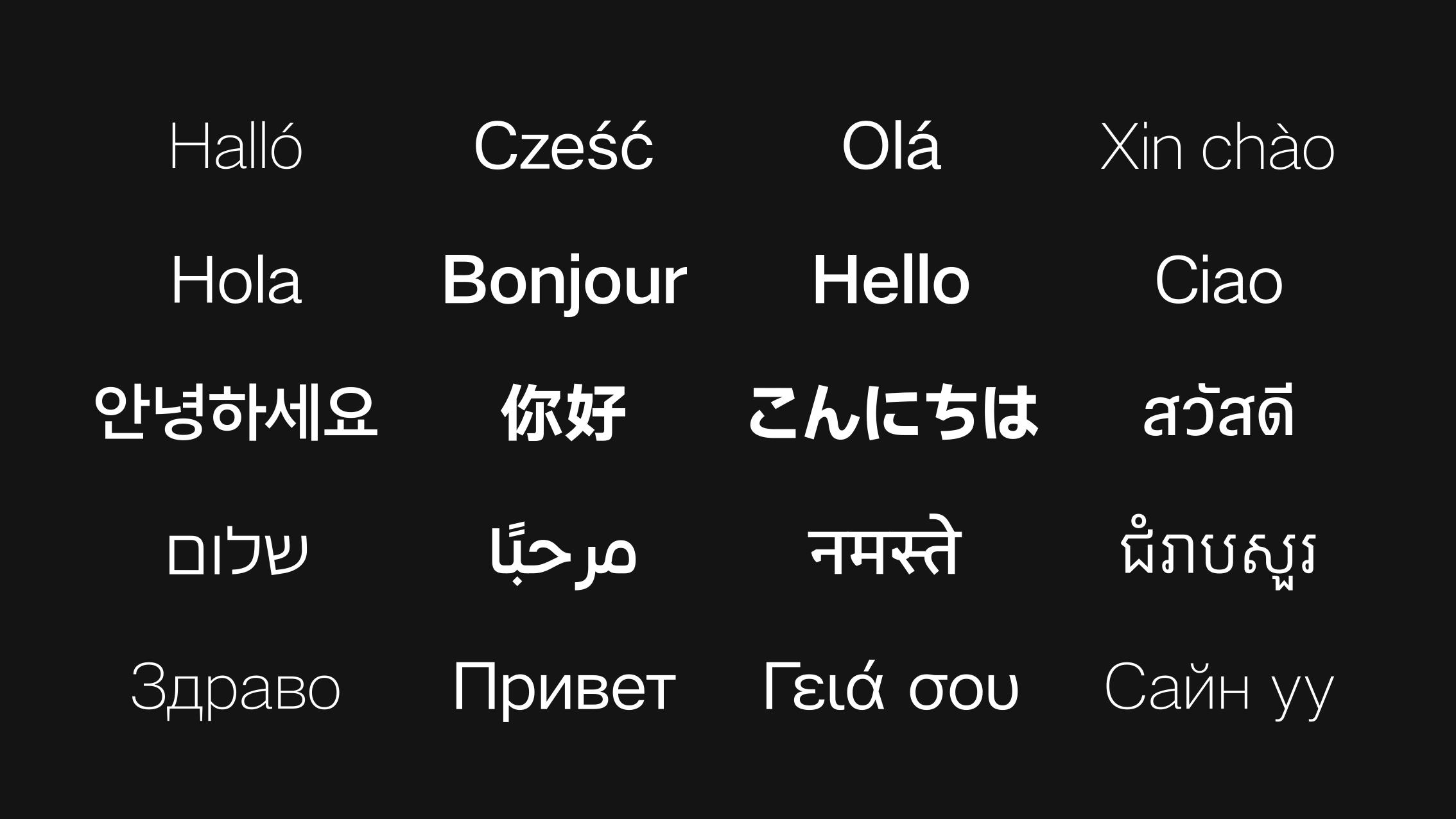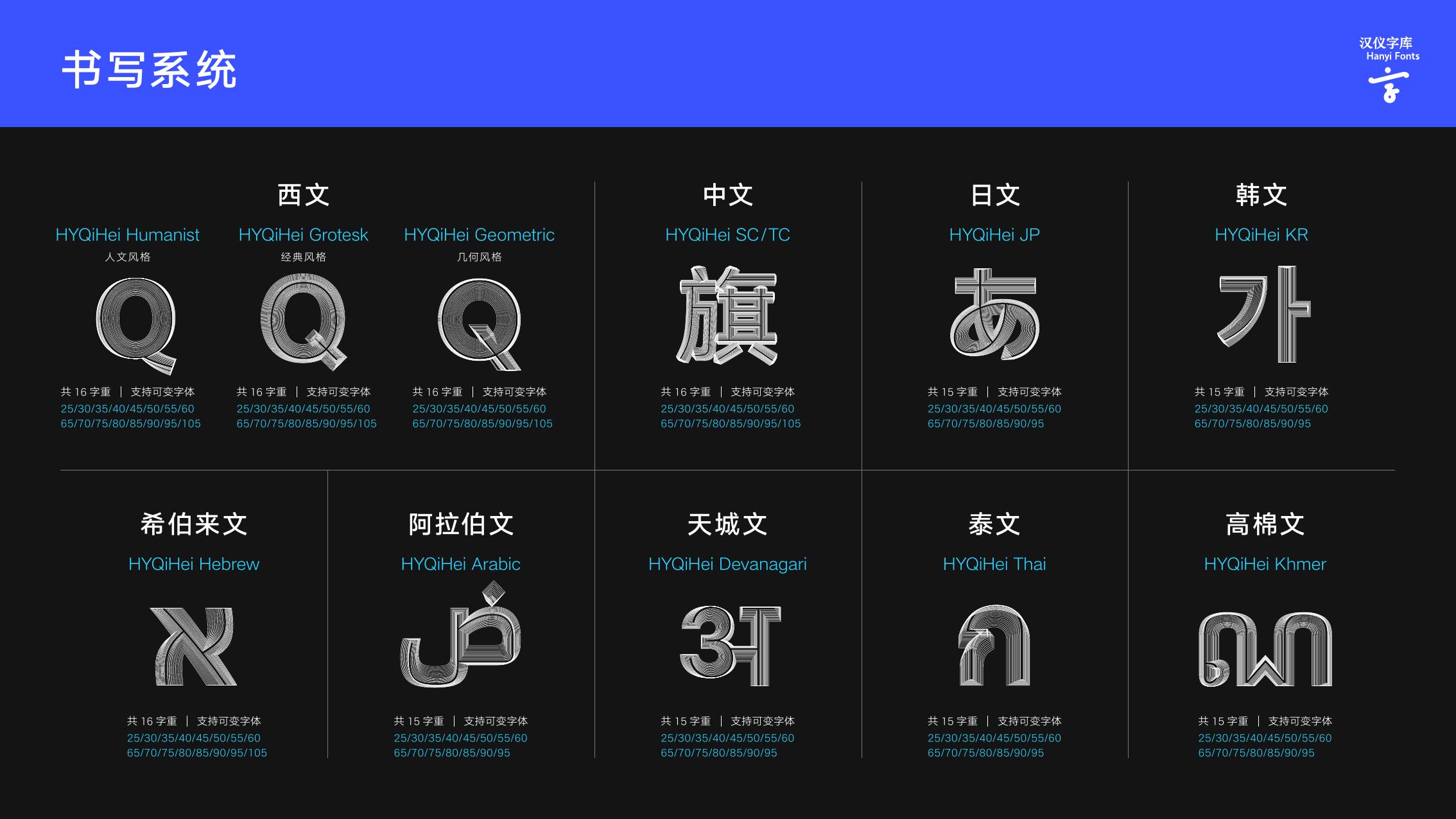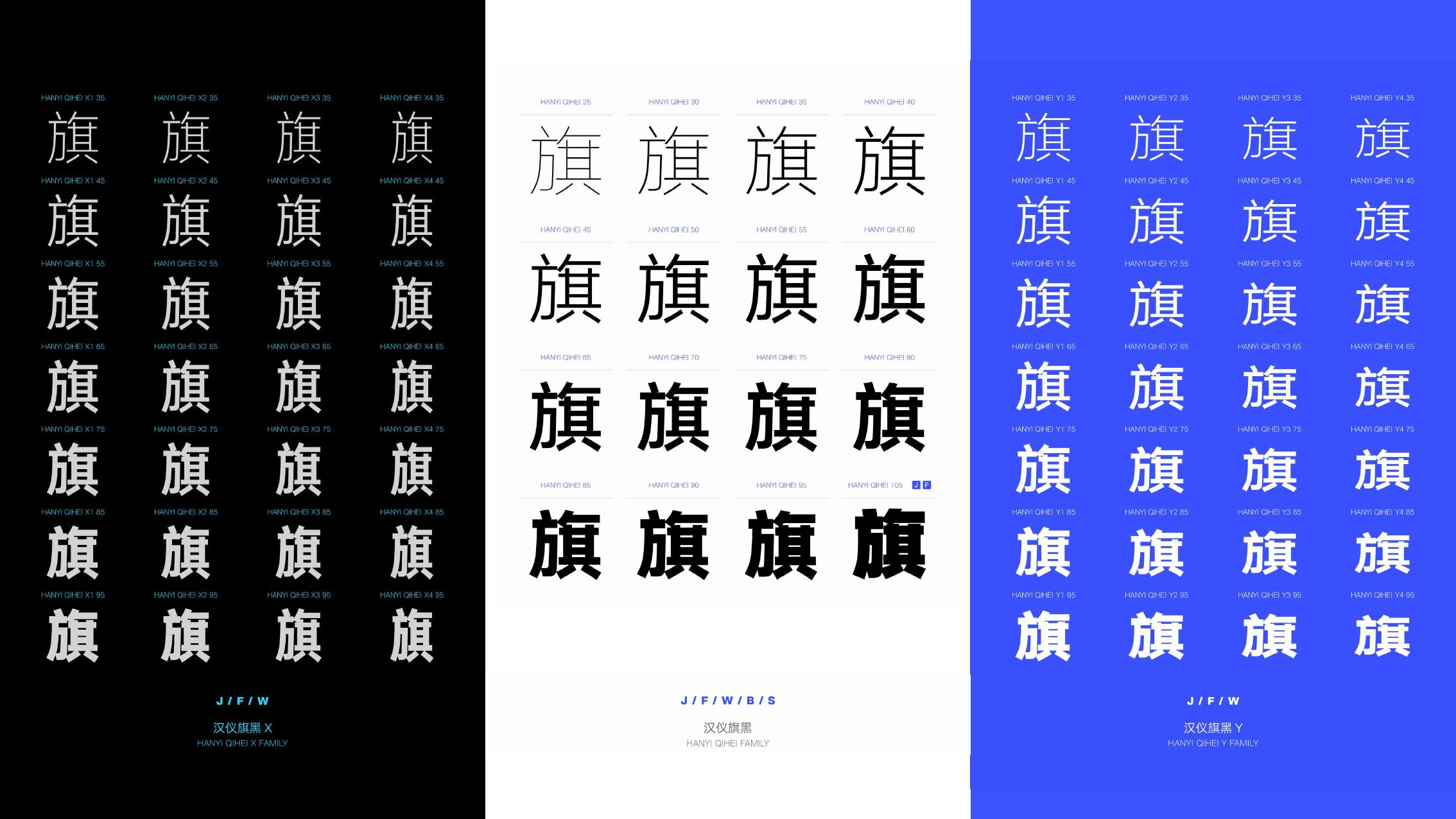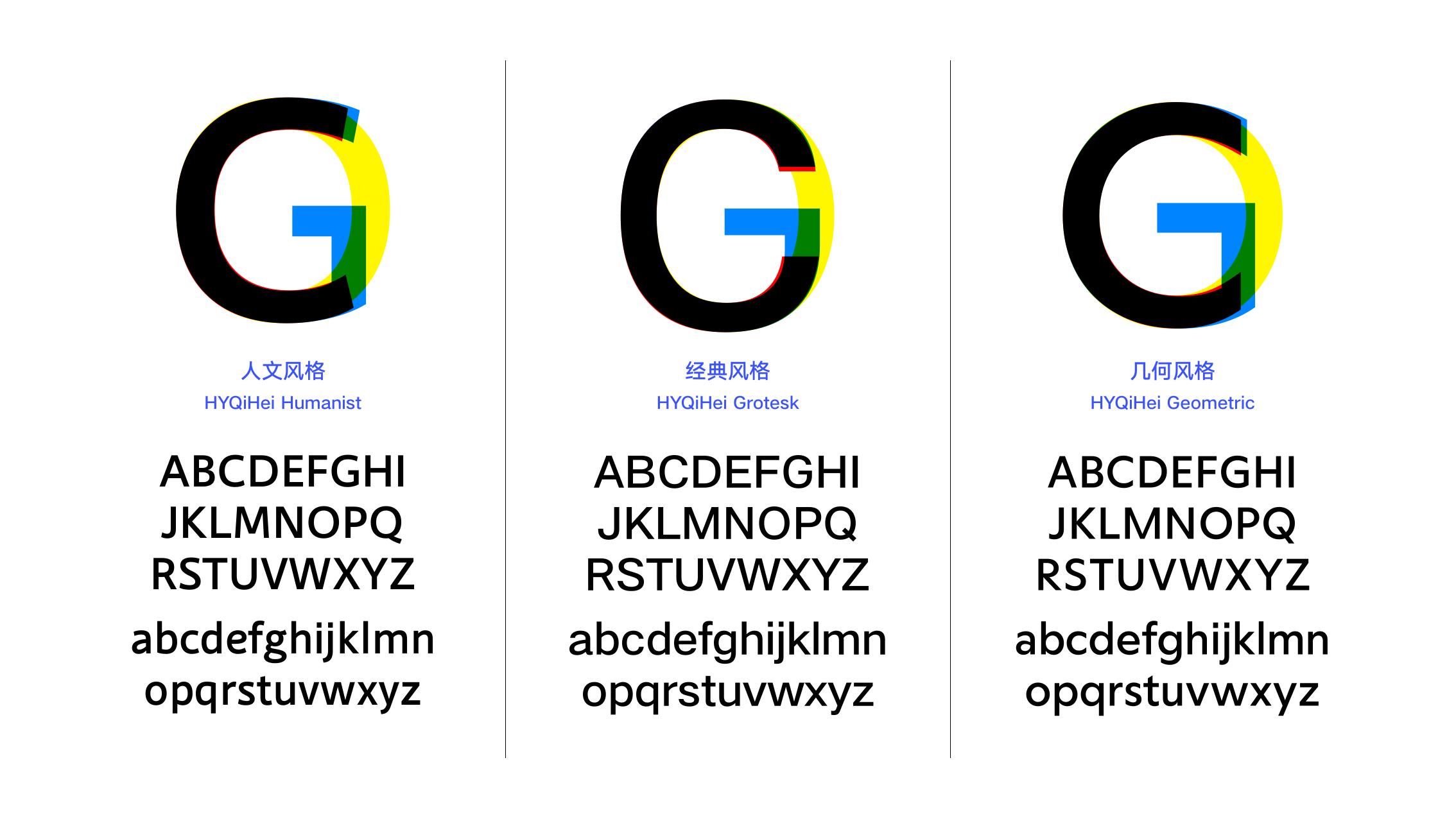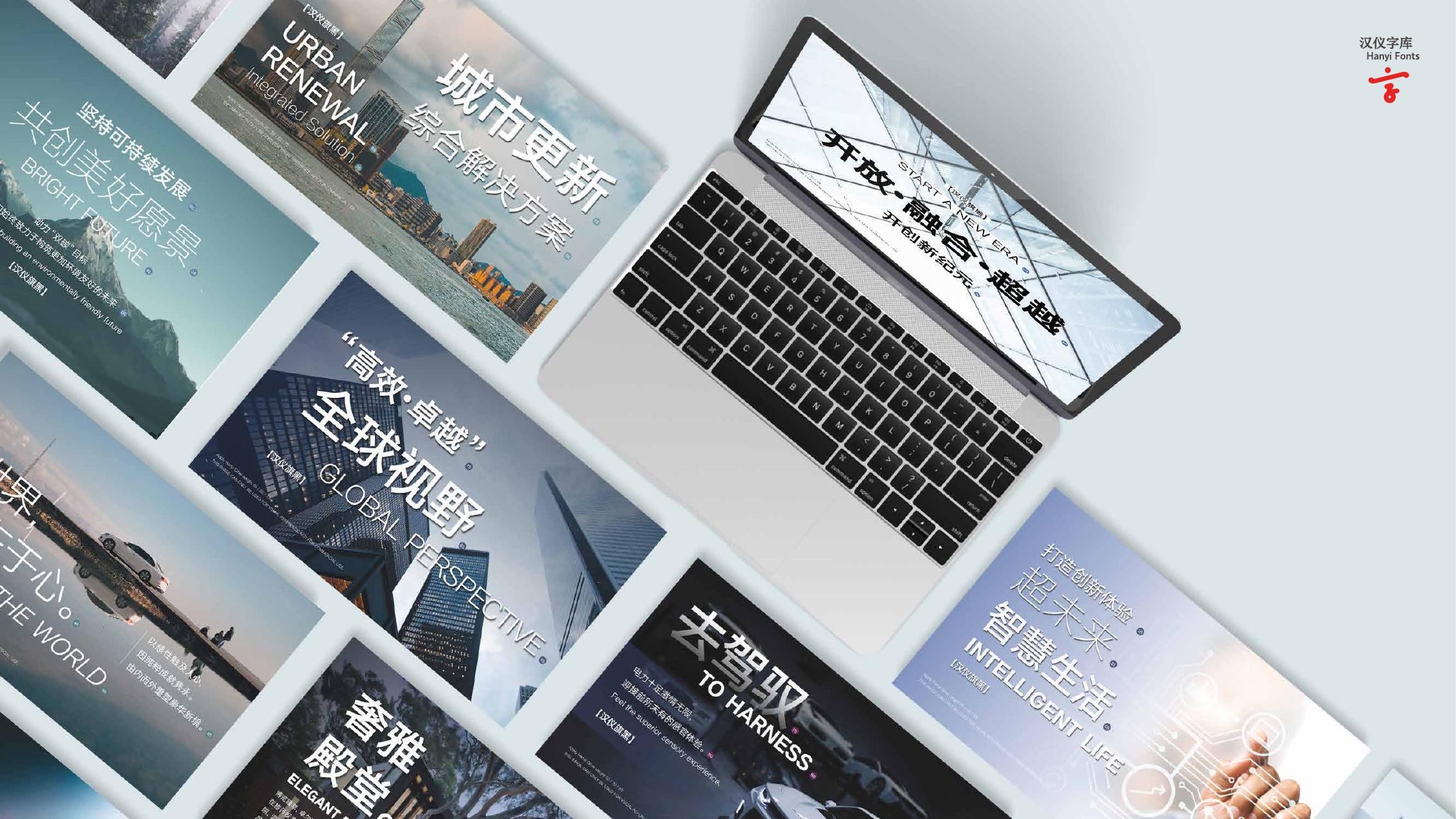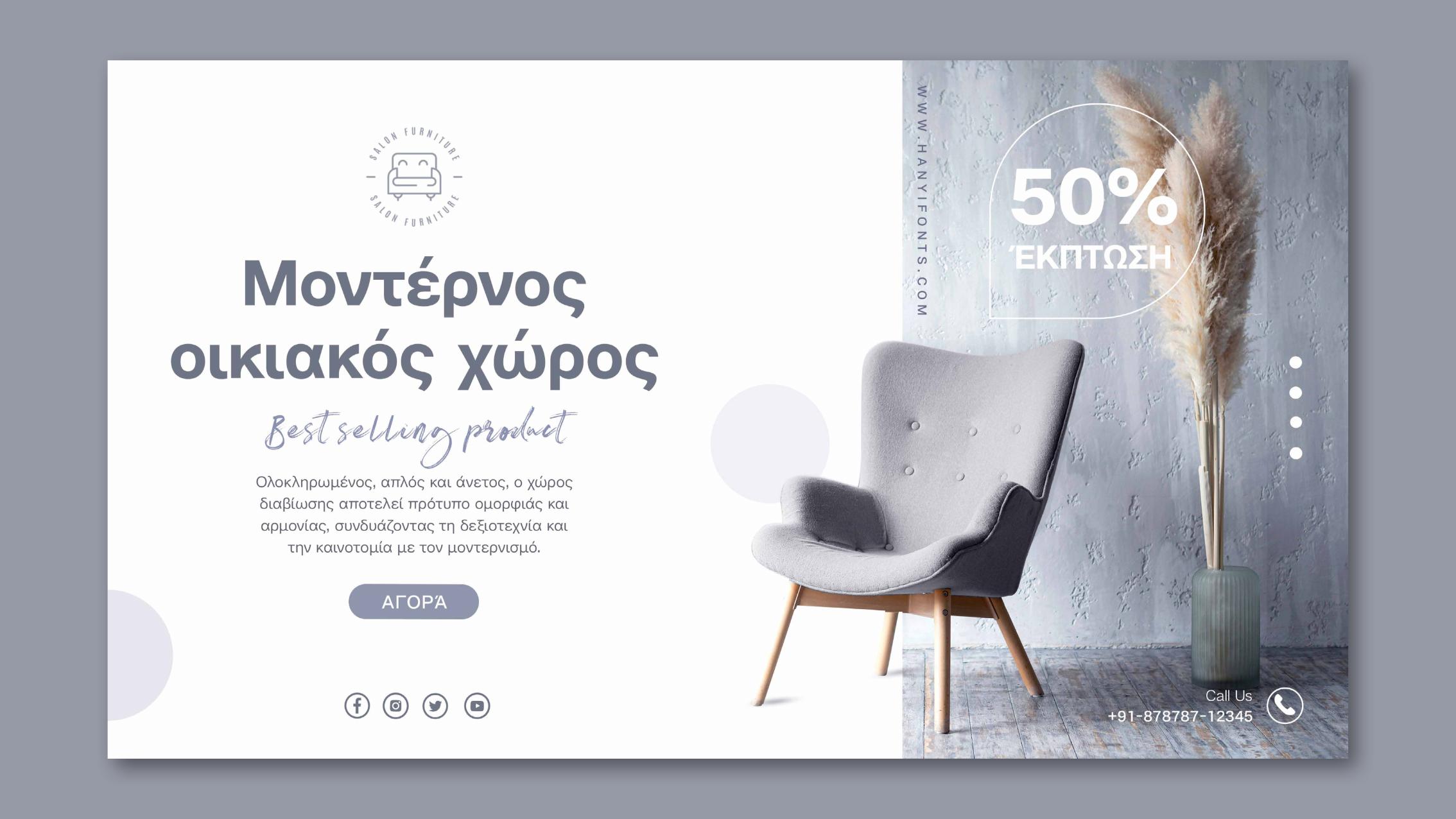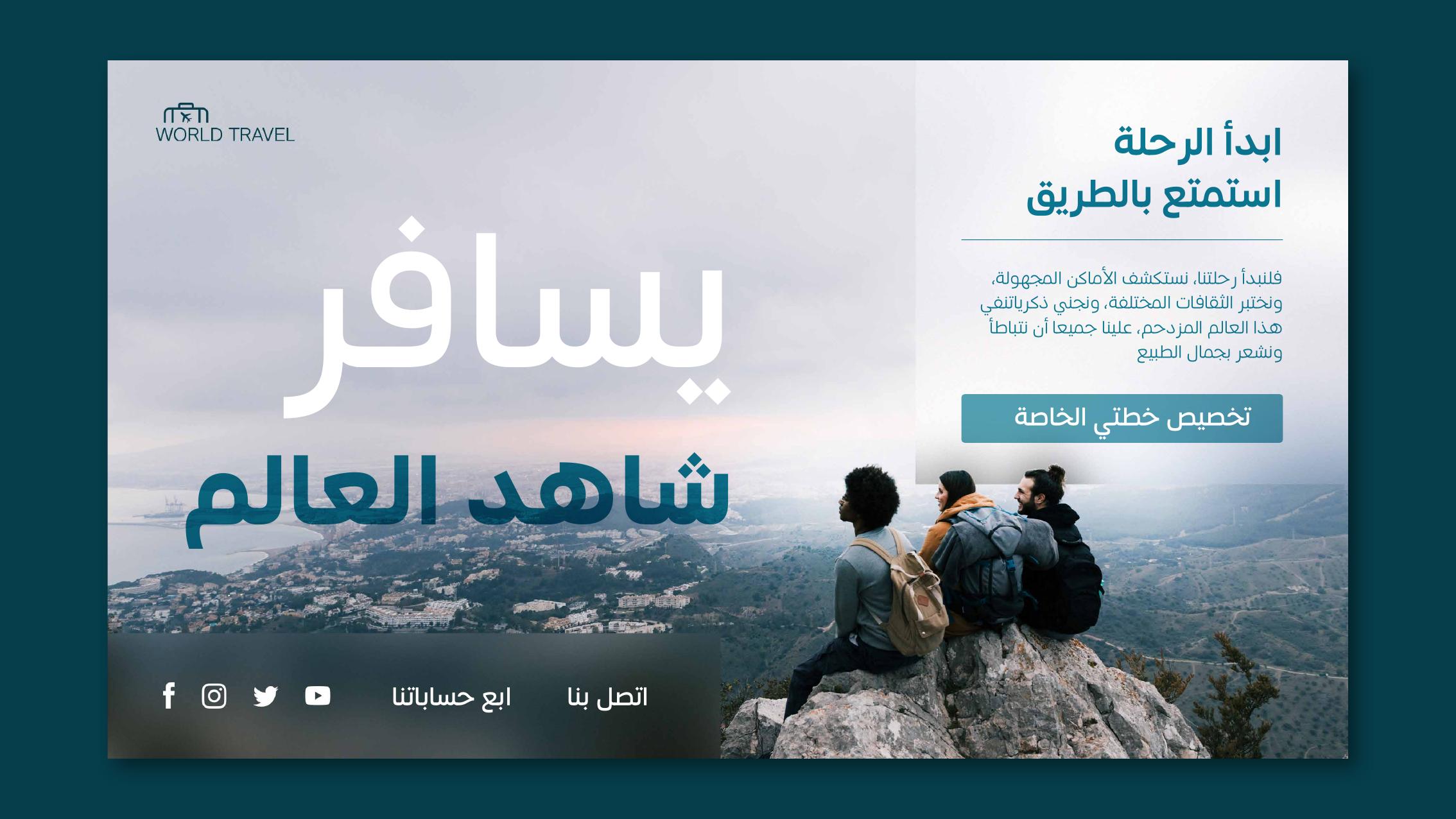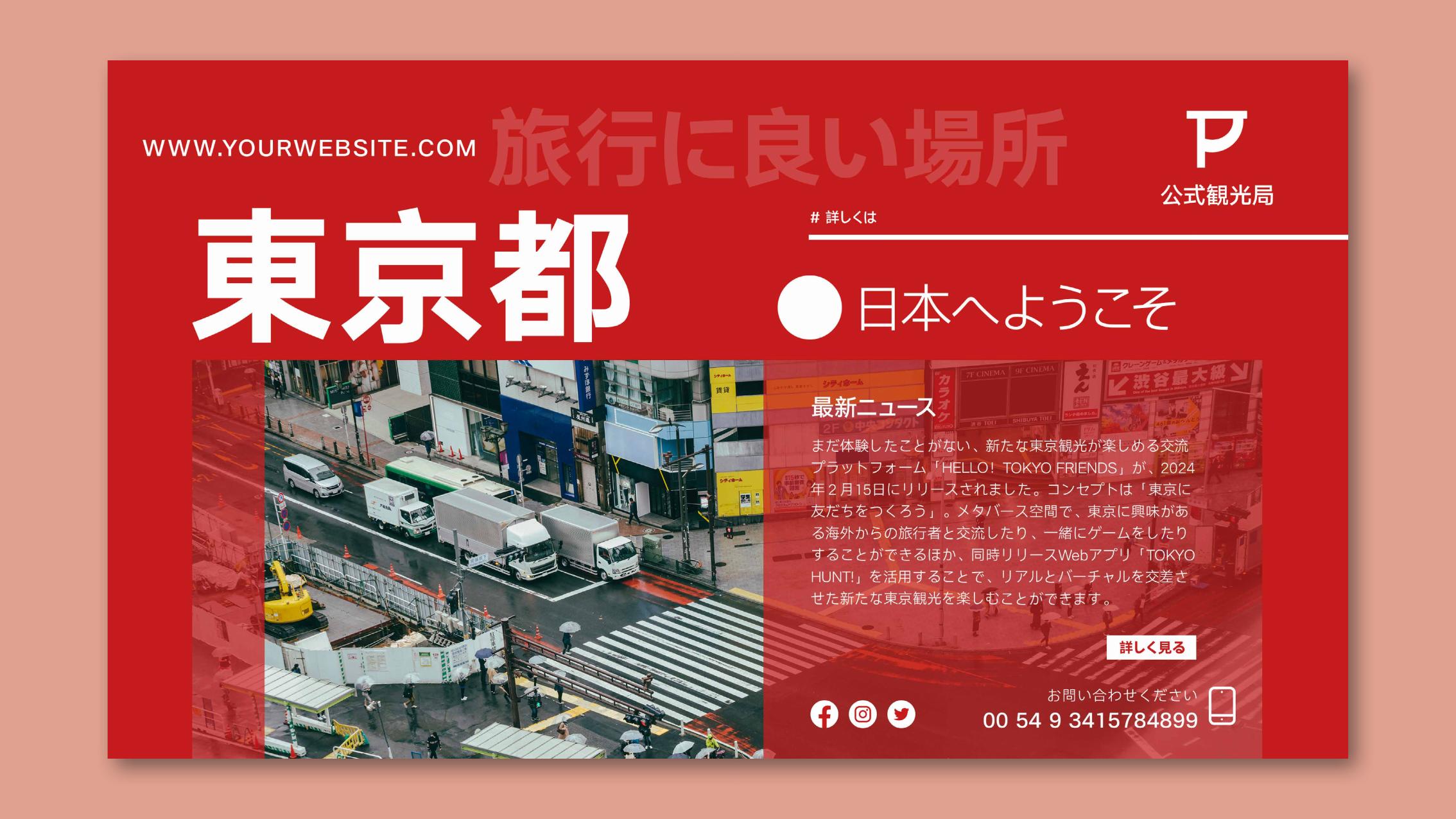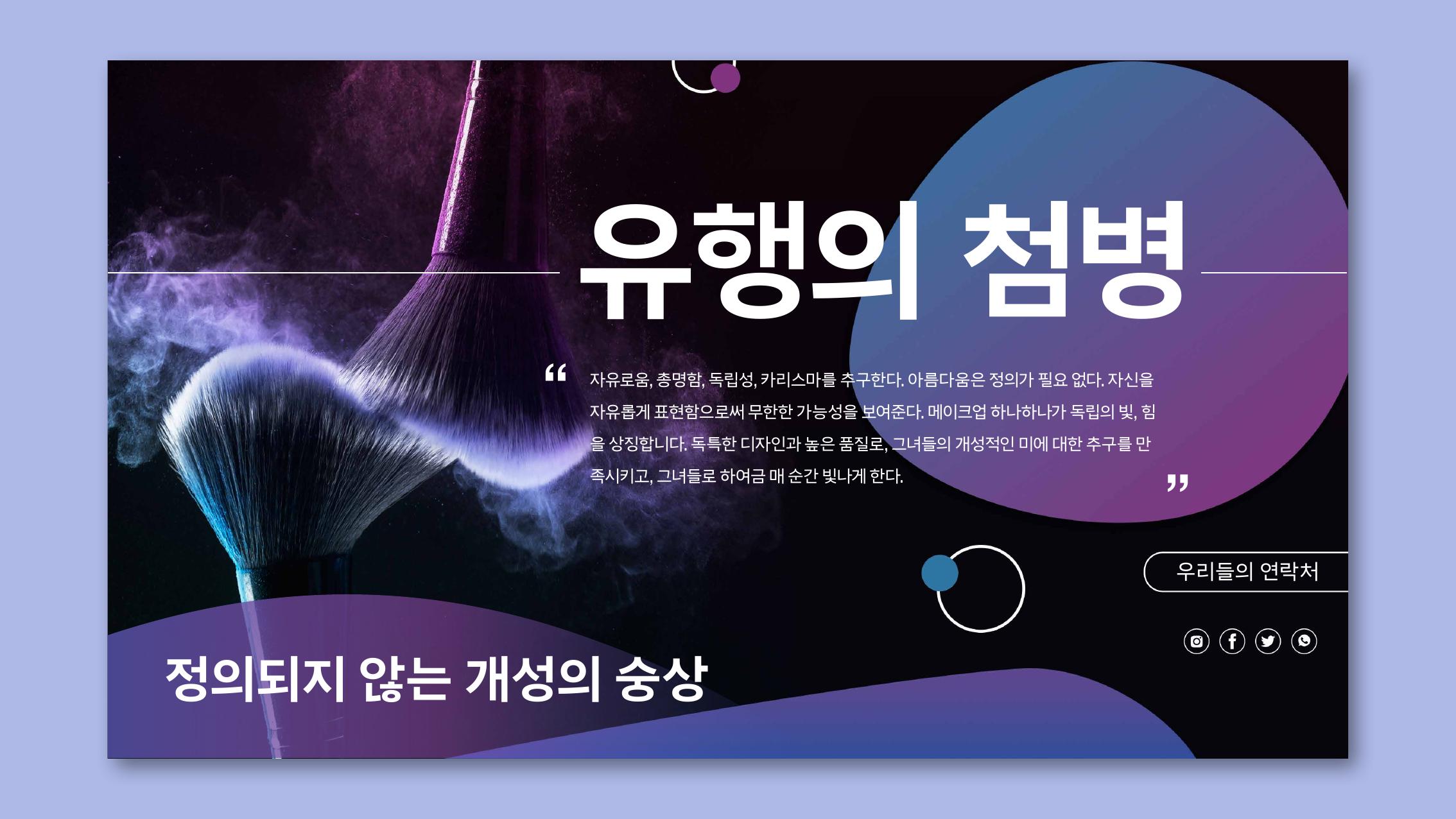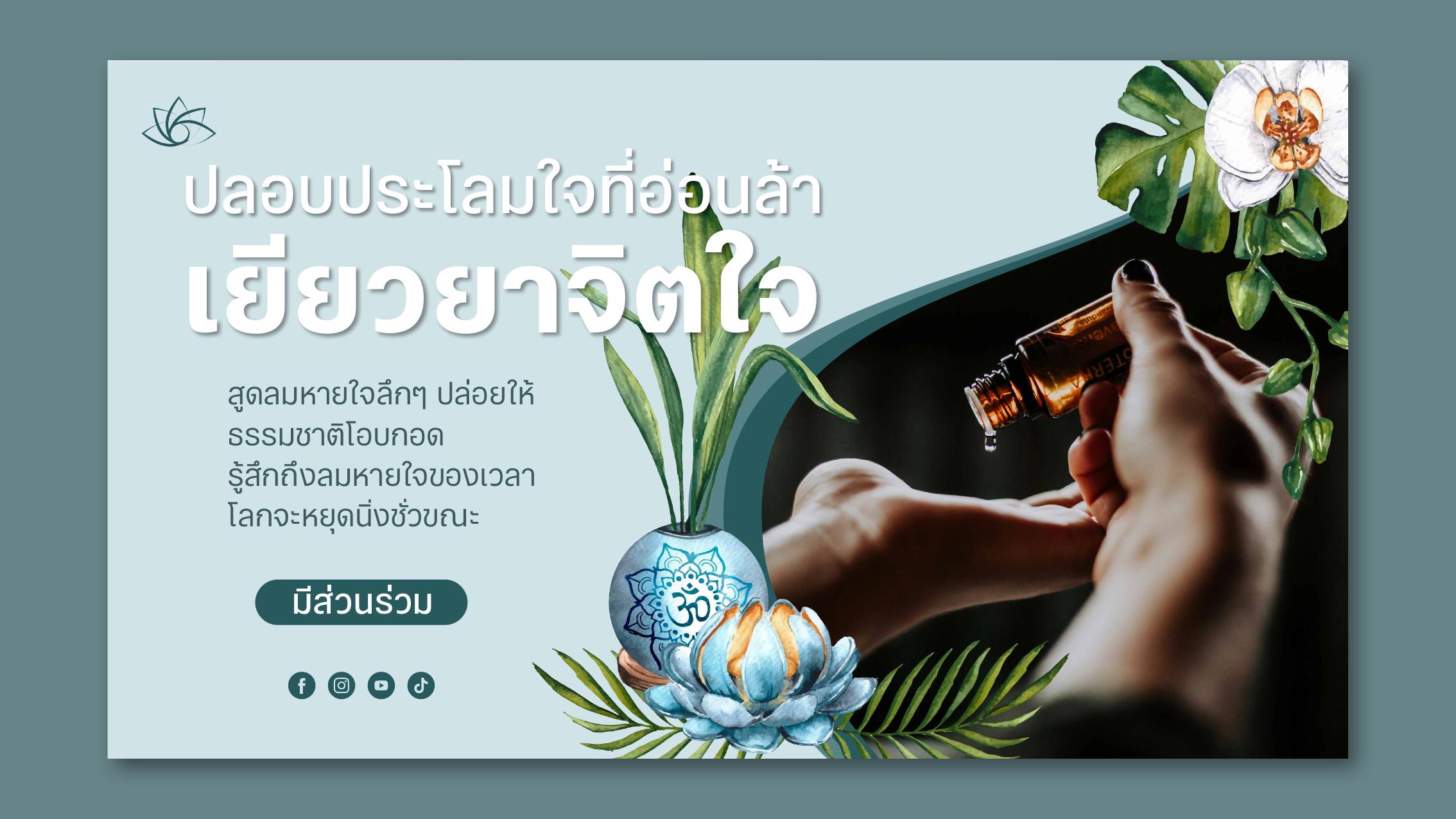
HYQiHei Global
One type system for brands moving across scripts.
HYQiHei Global extends the QiHei family across Chinese, Latin, Japanese, Korean, Arabic, Hebrew, Devanagari, Thai, Khmer, Cyrillic, and Greek environments while keeping one coherent brand voice.
10+
writing systems
150+
language environments
15-16
weights per script
Variable
family architecture
Overview
The system uses HYQiHei Chinese and Latin as the design anchor, then extends into coordinated Traditional Chinese, Japanese, Korean, Arabic, Hebrew, Devanagari, Thai, and Khmer branches.
Each branch preserves QiHei's clean, open, and efficient temperament while respecting local stroke logic, spacing, and reading habits.
For global products, campaigns, operating systems, automotive screens, packaging, and websites, the result is a consistent typographic voice across markets.
Coordinate Latin, CJK, RTL, Indic, Thai, and Khmer typography within one visual system.
Build hierarchy with broad weight ranges and variable-font logic, without relying on mismatched substitutes.
Support brand, UI, packaging, publishing, film, games, and websites with consistent typography.
System Details
Drawn from the HYQiHei Global specimen, these modules show how the family organizes scripts, styles, and market-specific applications.
HYQiHei Global spans Latin, Simplified and Traditional Chinese, Japanese, Korean, Hebrew, Arabic, Devanagari, Thai, and Khmer, with 15 to 16 weights and variable-font support planned across the system.
HYQiHei X, HYQiHei, and HYQiHei Y give the Chinese core a broad stylistic range, from compact clarity to stronger display presence, while keeping the family visually connected.
HYQiHei Humanist, Grotesk, and Geometric offer three Latin temperaments: warmer and more organic, neutral and dependable, or precise and geometric for more technical brand voices.
Chinese and Latin applications appear together in urban-renewal, global-perspective, and smart-living scenarios, showing how one type system can carry campaigns and commercial visuals.
The Greek specimen uses a furniture e-commerce page to test hierarchy across headlines, product modules, promotional messages, body copy, and calls to action.
The Arabic page demonstrates right-to-left hierarchy from headline and paragraph text to CTA buttons, making the branch practical for travel, service, and brand landing pages.
The Japanese specimen organizes large headlines, news text, buttons, and contact details into a high-contrast layout, showing HYQiHei JP in public-information and tourism contexts.
The Korean page uses a beauty-brand scenario to balance independence, personality, long-form messaging, and confident headline rhythm within a single visual voice.
The Thai specimen frames nature, breath, and healing as a lifestyle campaign, showing how HYQiHei Thai handles soft emotional tone, short headlines, and calming body copy.
Global Font is a system-level design service, not simply a multilingual font list.
Brand
Keep the brand recognizable as campaigns move between Chinese, Japanese, Korean, Arabic, and Latin markets.
Product
Use open counters, stable rhythm, and broad weights for mobile, HMI, OS, and information-dense interfaces.
Operations
Reduce fallback fonts and local-market patchwork by planning language coverage before launch.